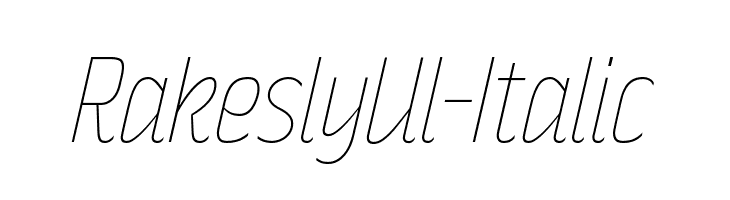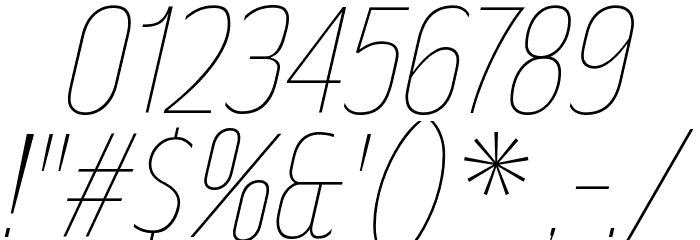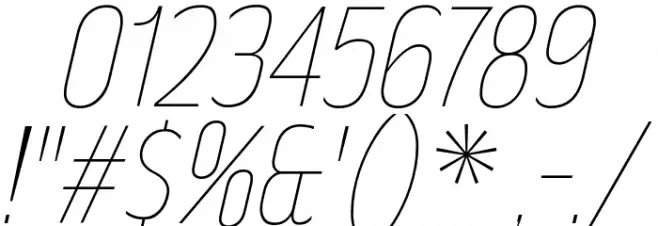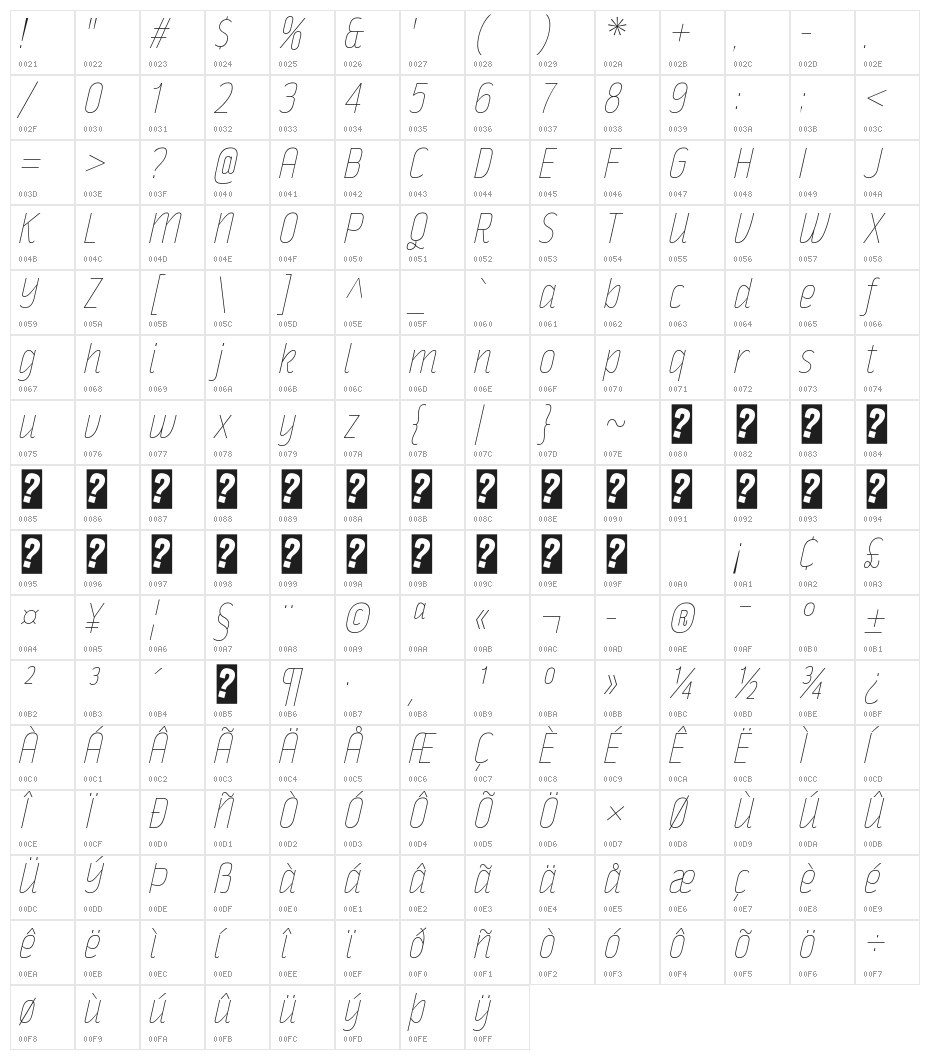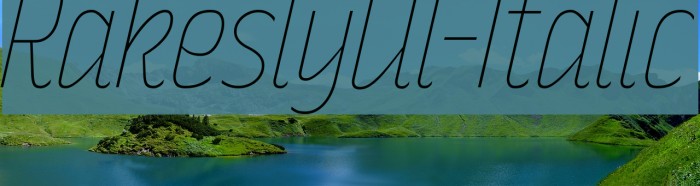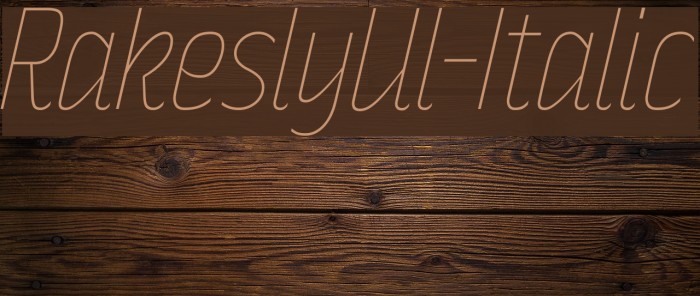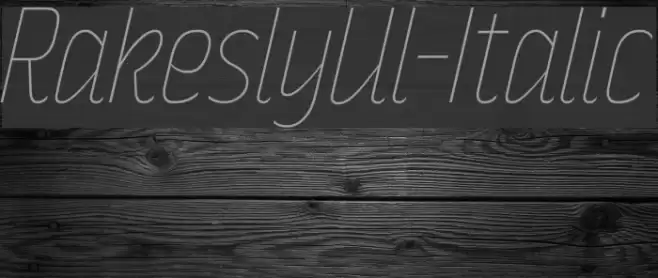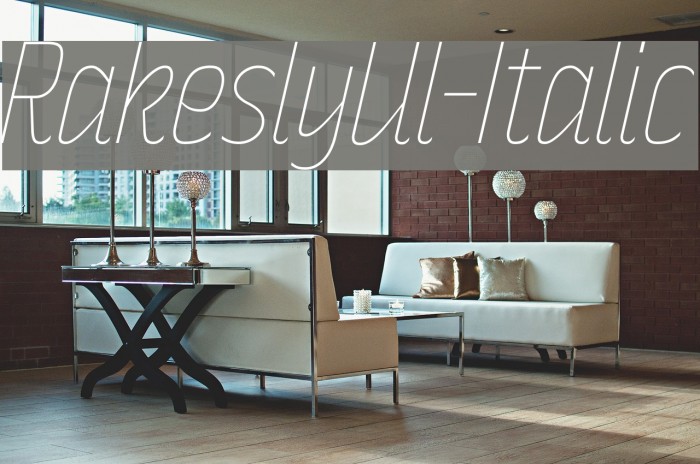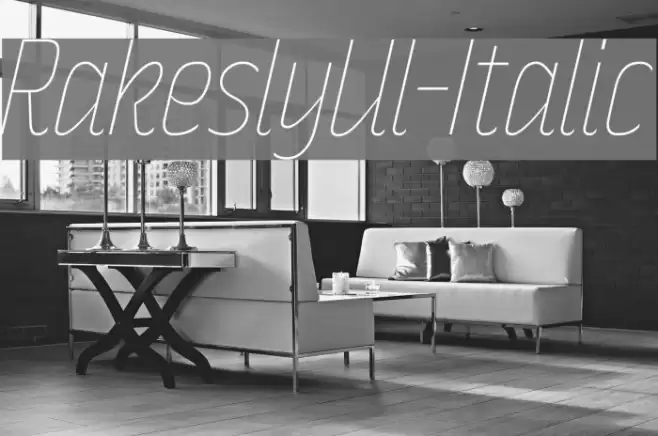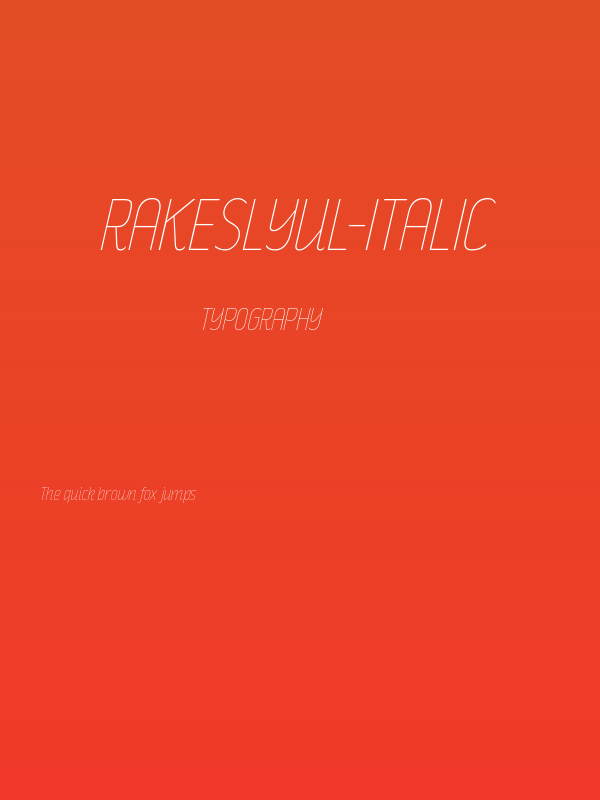
RakeslyUl-Italic Font
RakeslyUl-Italic Description
This font features a sleek and modern design with a distinct italic slant, giving it a dynamic and fluid appearance. The characters are elongated with a consistent stroke width, contributing to a clean and elegant look. The uppercase and lowercase letters maintain a cohesive style, while the numerals and special characters are designed to complement the overall aesthetic. This font's minimalistic approach makes it versatile for various design applications, offering a sophisticated yet approachable feel.
| Use Case | Headlines, Logos, Editorial design |
| Proposed Projects | Ideal for fashion magazines, modern branding, elegant invitations, and digital media. |